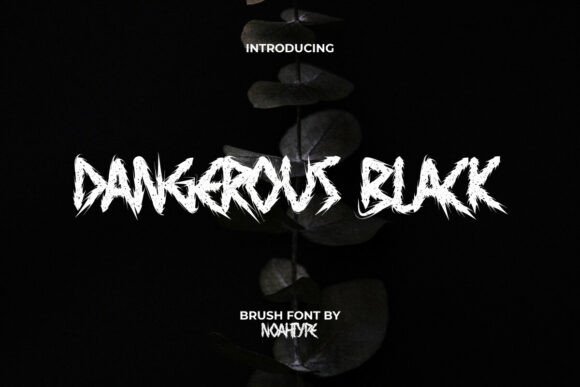
The Dark Side of Typography: Unleashing the Power of Dangerous Black Font
I’ll never forget the night I was working on a horror-themed poster project, and I just couldn’t find the right font to convey the eerie atmosphere. My client wanted something that would make their audience shiver, but everything I tried seemed to fall flat. That’s when I stumbled upon Dangerous Black Font – a terrifying hardcore metal brush decorative font that instantly sent chills down my spine. In this article, I’ll share my experience with this font, its features, and how to make the most of it in your designs.
First Impressions: A Font that Packs a Punch
Dangerous Black Font is a brush-made font with sharp angular strokes that scream horror and mystery. Its bold, edgy appearance makes it perfect for designs that require a strong, attention-grabbing presence. Whether you’re working on a brand image, cover, custom design, invitation, label, marketing material, menu, poster, printing, product packaging, quotes, signage, stationery, website, or anything else, this font is sure to make a statement.
- ✨ Instant intimidation factor: This font is not for the faint of heart. Its bold, sharp strokes will instantly add a layer of edginess to your design.
- ✅ Versatility: Despite its strong personality, Dangerous Black Font can be used in a variety of contexts, from posters and packaging to digital designs and more.
- 💯 High-quality design: The font is meticulously crafted, with attention to detail that makes it stand out from other decorative fonts.
- 🤔 Legibility at small sizes: Due to its bold, brush-made nature, Dangerous Black Font may become difficult to read at very small sizes. Use it at larger sizes or for headlines and titles.
- ⚠️ Limited use in formal designs: This font is not suitable for formal or professional designs that require a more subtle approach. Use it when you want to make a bold statement.
The Story Behind Dangerous Black Font
Dangerous Black Font was inspired by the dark, edgy world of hardcore metal music. Its creator, a typography enthusiast and metalhead, wanted to craft a font that would reflect the raw energy and aggression of this music genre. The result is a font that’s both terrifying and mesmerizing – perfect for designs that require a bold, attention-grabbing presence.
| Font Name | Dangerous Black Font |
| Author | NoahType |
| Is Dangerous Black Font suitable for body text? | No, due to its bold, brush-made nature, Dangerous Black Font is best used for headlines, titles, and short text elements. |
| Is Dangerous Black Font available in different weights or styles? | Currently, Dangerous Black Font is available in a single weight. However, its creator may release additional weights or styles in the future. |